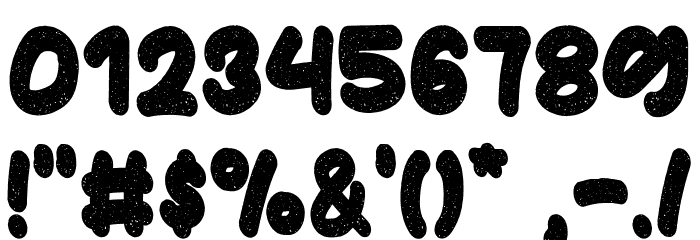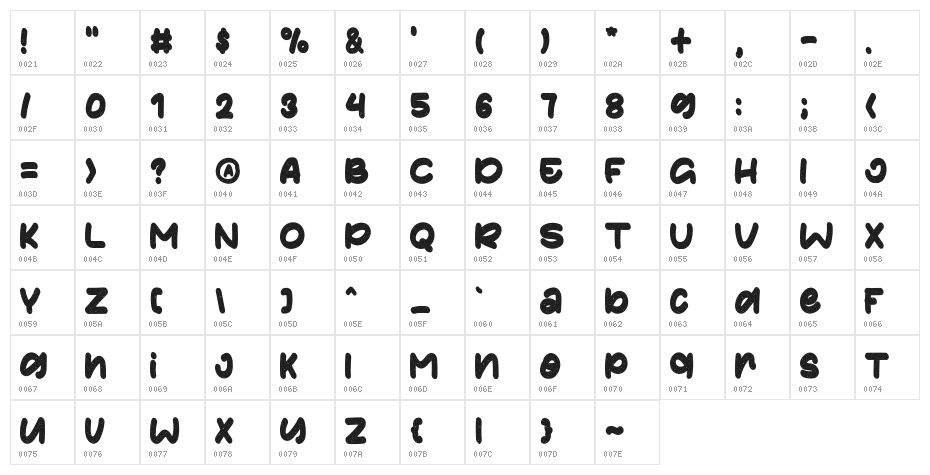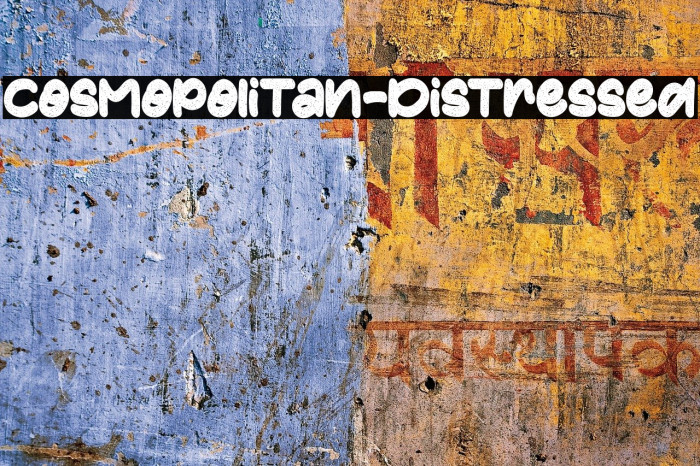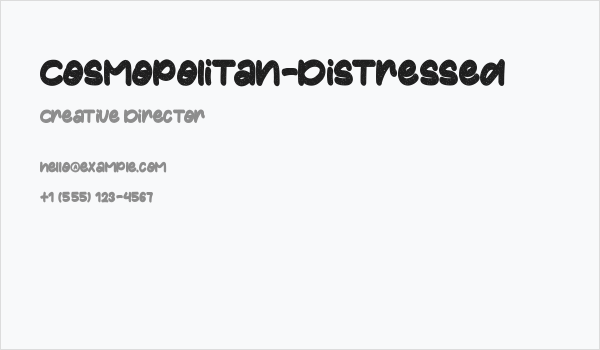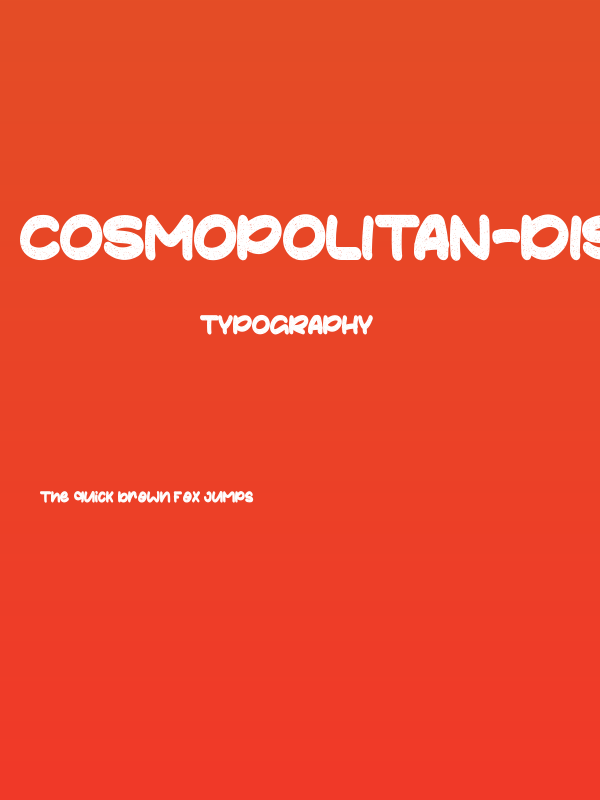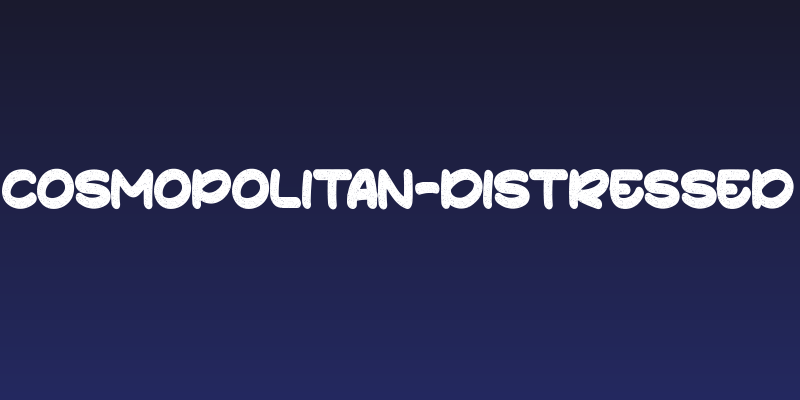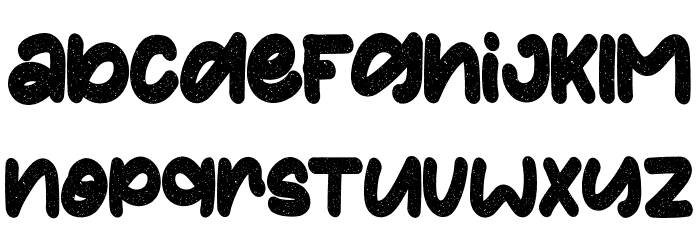
Cosmopolitan-Distressed Font
Cosmopolitan-Distressed Description
This font features a bold, distressed style with a playful and artistic flair. Each character is filled with a speckled texture, giving it a worn, vintage appearance. The letters are rounded and thick, creating a sense of friendliness and approachability. The uppercase and lowercase letters maintain a consistent style, with smooth curves and a uniform weight. The numbers and special characters follow the same design, ensuring a cohesive look across all elements. This font's unique texture and bold presence make it stand out, perfect for projects that require a touch of creativity and personality.
| Proposed Projects | Ideal for posters, branding, packaging, and creative projects that need a vintage or artistic touch. |